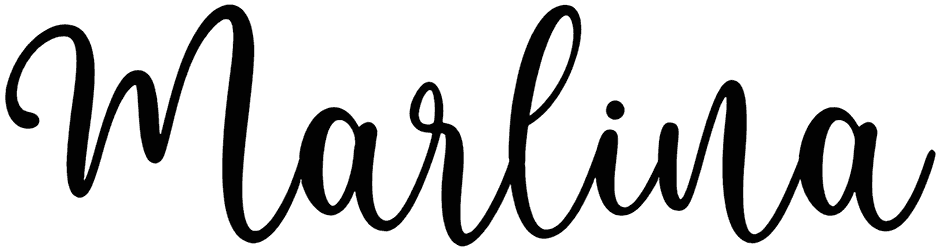
Marlina Font
If you’re looking for a structured mix with a flavor of personality, you’ve come to one. Marlina offers twisty characters with smooth connections that do a great job of capturing the reader’s attention.
This handwritten font provides a personal tool with round and extensive features that can significantly make your writing more beautiful despite its illegibility. You can use this script font as the seasoning for your posters and packaging if you want to turn every project into a masterpiece.